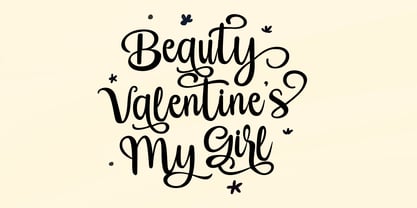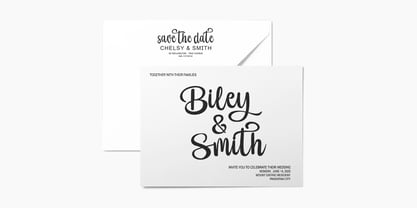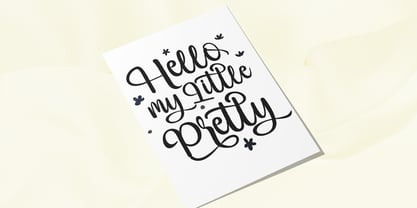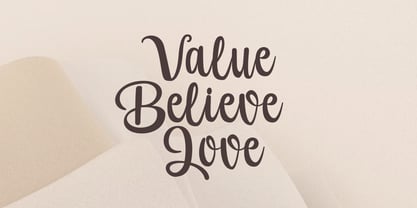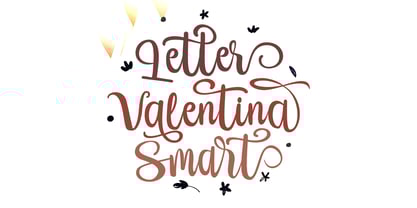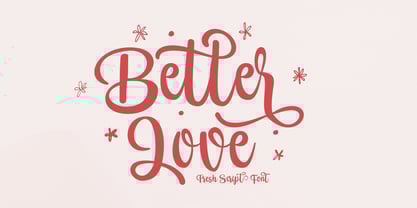
Home Better Love
by Genesislab
The Home Better Love Font Family was designed by Bustami Harun and published by Genesislab. Home Better Love contains 1 styles.
Introducing Home Better Love, a fancy font, handwritten typography, modern calligraphy script, combining classic style with modern style calligraphy, make it a collection in your font library
Can be used for various purposes such as titles, signatures, logos, wedding invitations, t-shirts, letterheads, nameplates, labels, newsletters, posters, badges, etc.
Designers: Bustami Harun
Publisher: Genesislab
Foundry: Genesislab